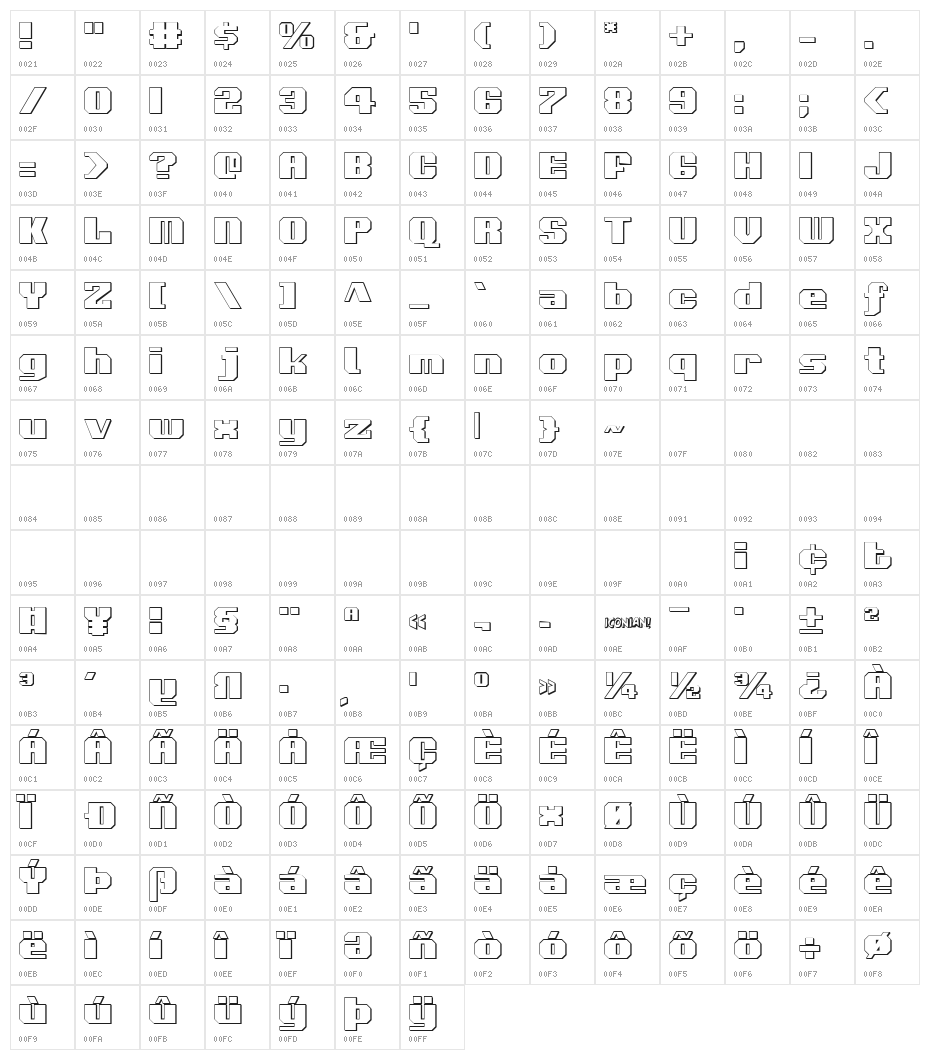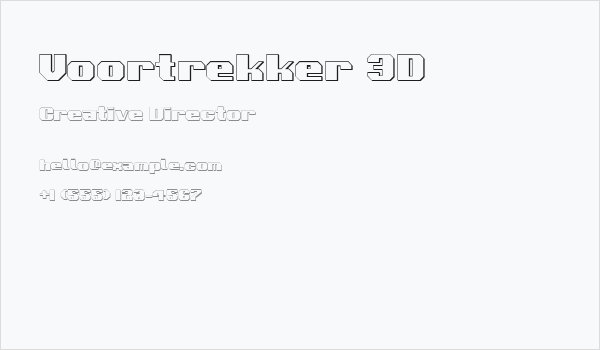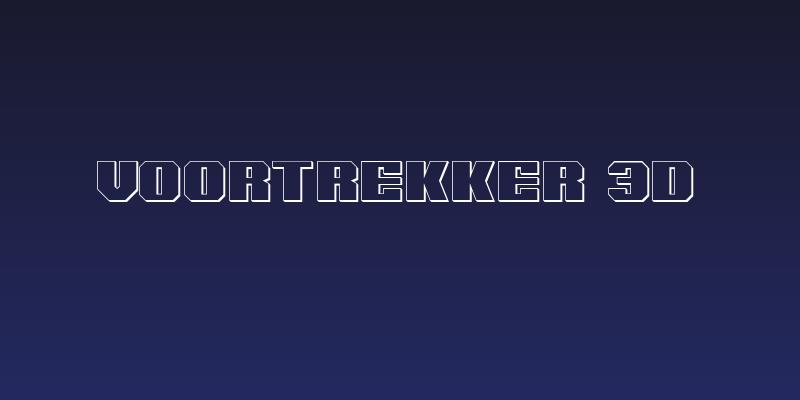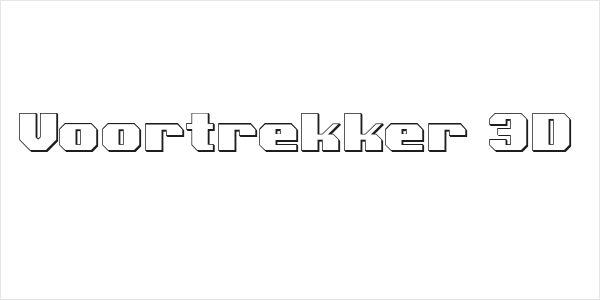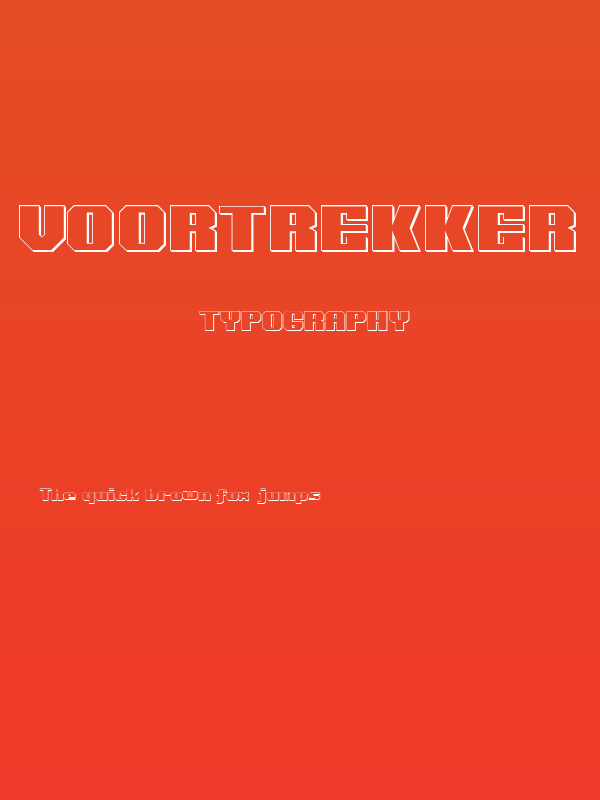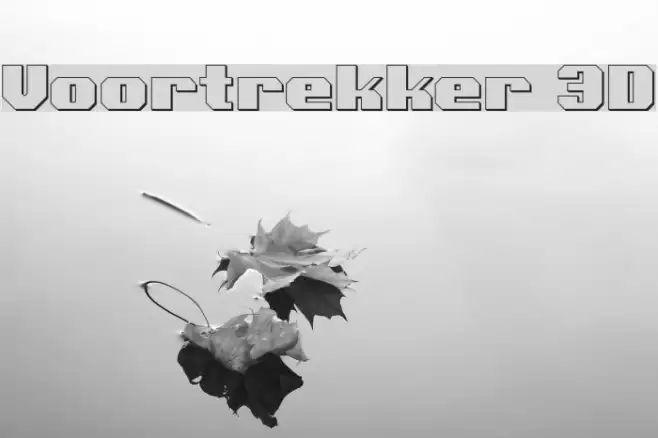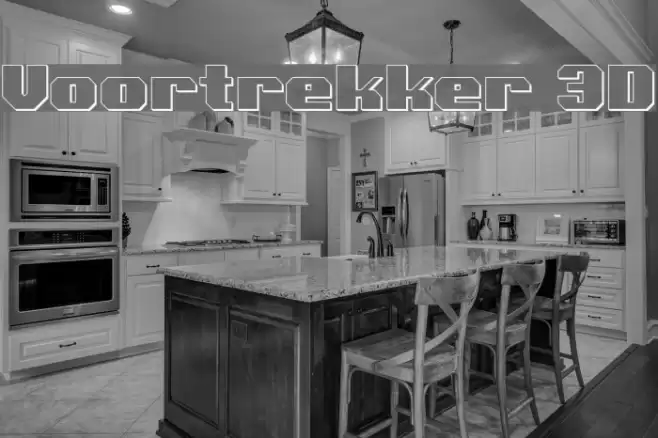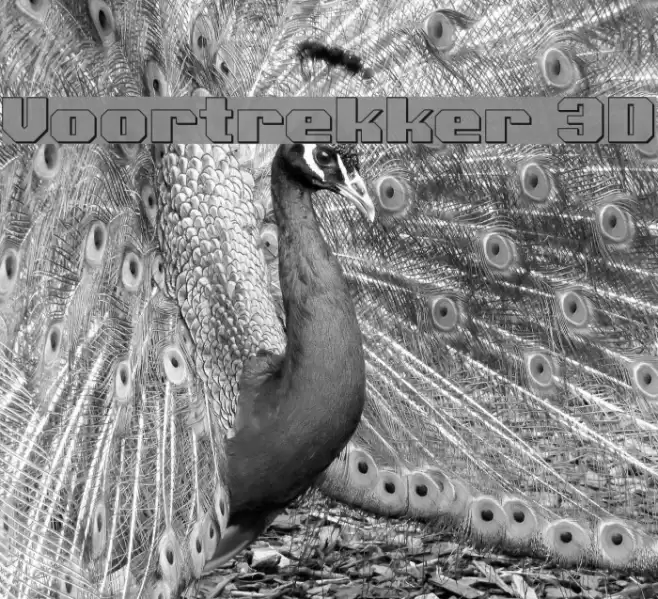
Voortrekker 3D Font
Voortrekker 3D Description
This font features a bold, three-dimensional design with a blocky, geometric structure. Each character is outlined, giving it a distinct, shadowed appearance that enhances its 3D effect. The uppercase and lowercase letters maintain a consistent style, with angular edges and uniform thickness throughout. Numbers and special characters are designed to match the bold, structured look of the alphabet, ensuring a cohesive appearance across all glyphs. The font's unique style makes it stand out, ideal for projects that require a strong visual impact.
| Proposed Projects | Ideal for headlines, posters, logos, and any design requiring a strong, impactful visual presence. |